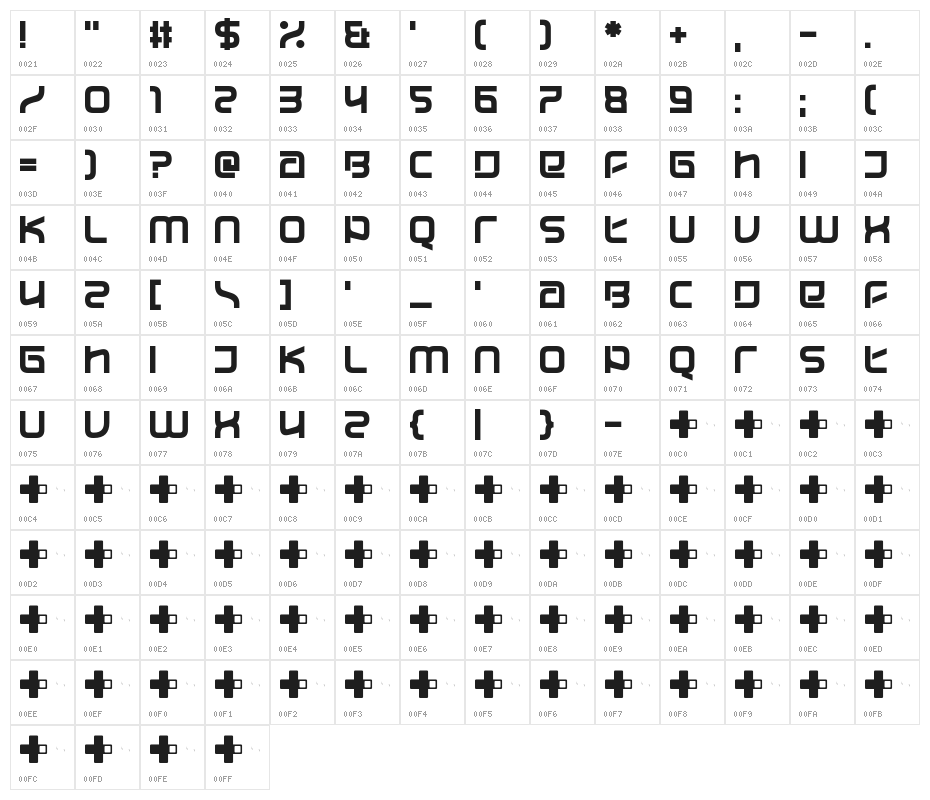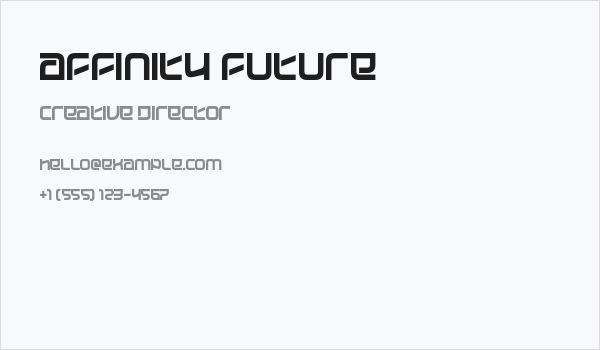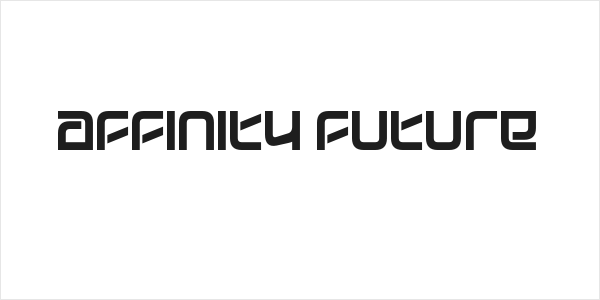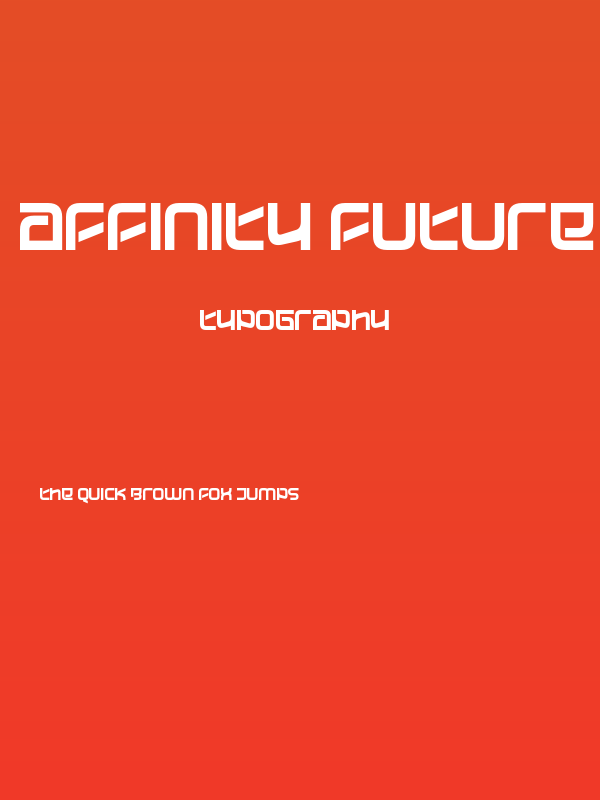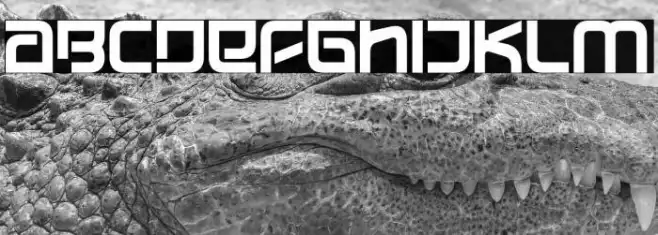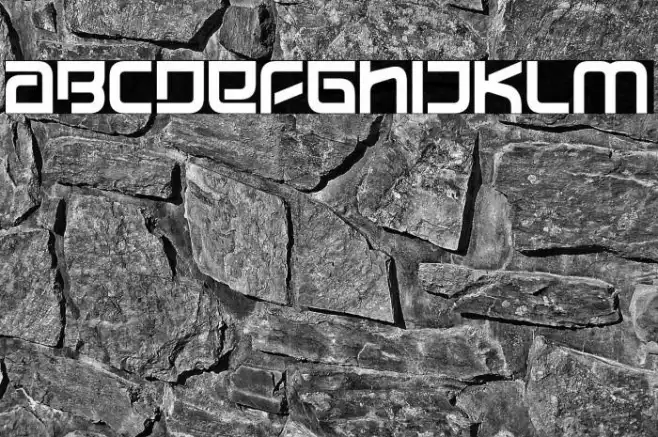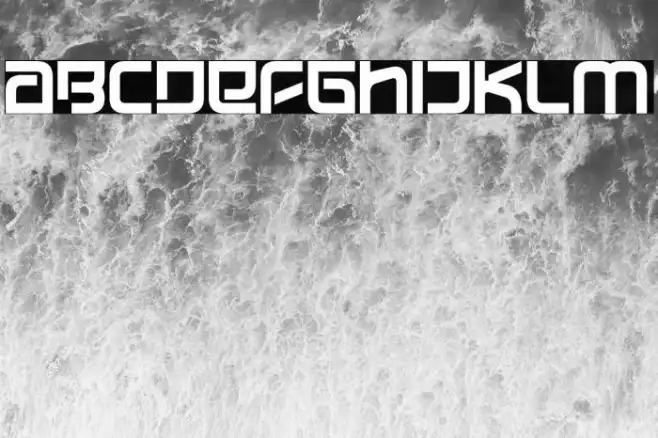
Affinity Future Font
Affinity Future Description
This font features a futuristic and geometric design, characterized by its bold and angular letterforms. The uppercase and lowercase letters share a consistent style, with a strong emphasis on horizontal and vertical lines, creating a sense of uniformity and balance. The numerals and special characters maintain this geometric aesthetic, making the font suitable for modern and tech-oriented designs. The overall appearance is clean and structured, with a focus on readability and impact.